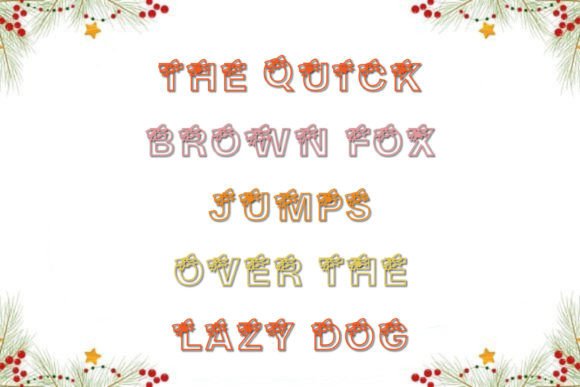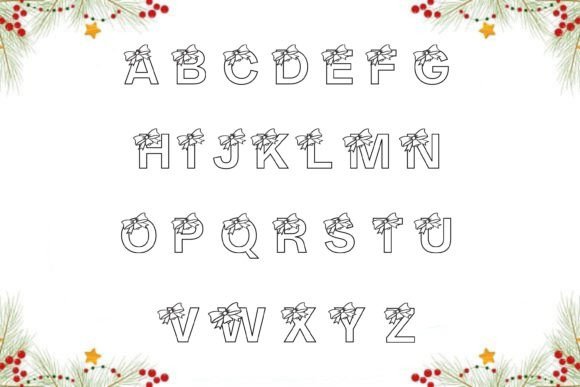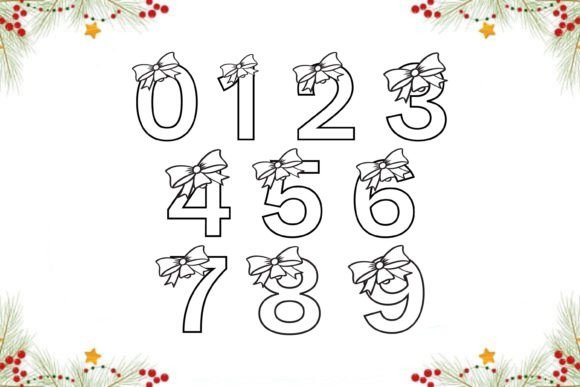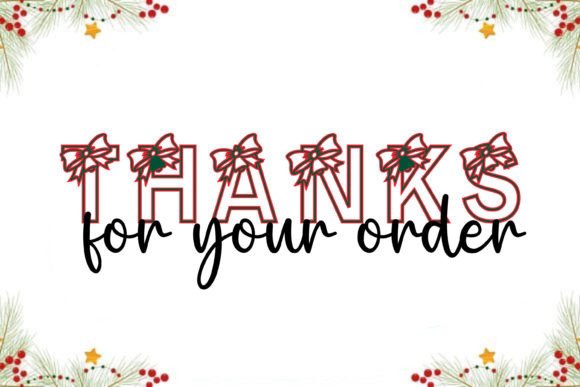
The Perfect Font to Bring Your Designs to Life
Have you ever been stuck on a design project, searching for the perfect font to give it that extra oomph? You’ve spent hours browsing through fonts, trying to find the one that captures the essence of your project, but nothing seems to fit quite right. That’s when you stumble upon it – a font that makes your design come alive, and everything falls into place. For designers, finding that perfect font can be a game-changer.
Enter the vibrant and playful Bow Stacked Font, a game-changing addition to any design project. This colorful font is perfect for branding campaigns, packaging designs, logotypes, and captivating headlines. Whether you’re working on a business project or a personal endeavor, the Bow Stacked Font adds a delightful sprinkle of charm to your designs, making them truly unforgettable.
Bow Stacked Font Key Features
- Font Family: Bow Stacked Font is a unique, stacked font family that offers a range of styles and weights.
- Unique Characteristics: Bow Stacked Font features a distinctive, stacked design that adds a touch of elegance and sophistication to any text.
Bow Stacked Font Review
I’ve had the chance to work with the Bow Stacked Font and I must say it’s a unique addition to any design project. ✨ The stacked font design gives it a playful, whimsical feel that can add a lot of character to a layout.
- The font’s versatility is a major plus – it can be used in a variety of contexts, from logos to headings.
- The Bow Stacked Font is highly customizable, allowing you to adjust the color, size, and spacing to fit your design needs.
- The font is also highly legible, making it suitable for body text as well as headings.
However, there are some limitations to consider: ⚠️ The font may not be suitable for projects where a more formal tone is required, and the stacked design may not be ideal for very long pieces of text.
Overall, I think the Bow Stacked Font is a great choice for designers looking to add a bit of personality to their projects. While it may not be suitable for every project, it’s a great tool to have in your design arsenal.
Tips for Getting the Most Out of Bow Stacked Font
For optimal results, use the Bow Stacked Font in conjunction with bold or italic text to create visual interest.
Experiment with different font sizes and colors to achieve the desired effect.
The Bow Stacked Font is ideal for:
- Food labels and packaging
- Party and event decorations